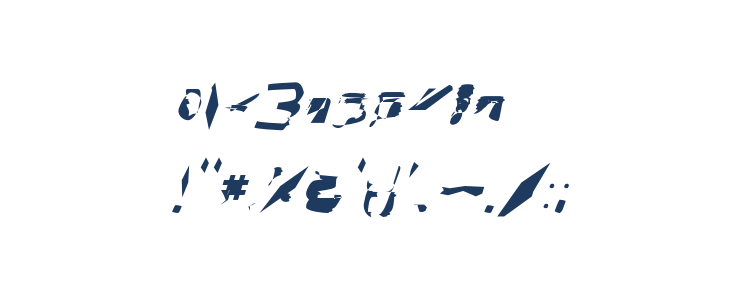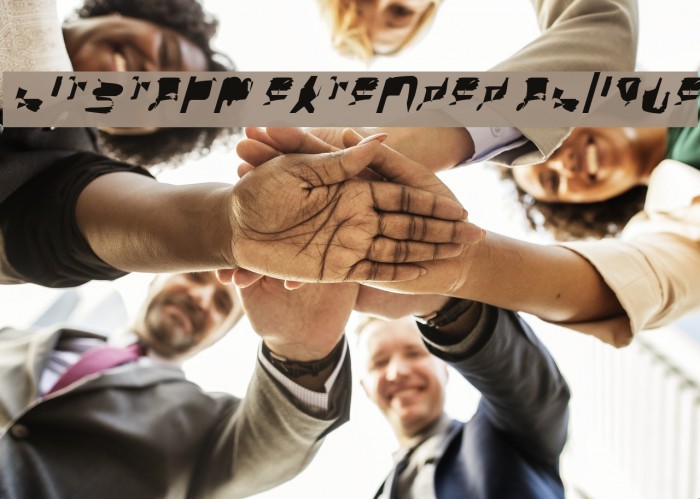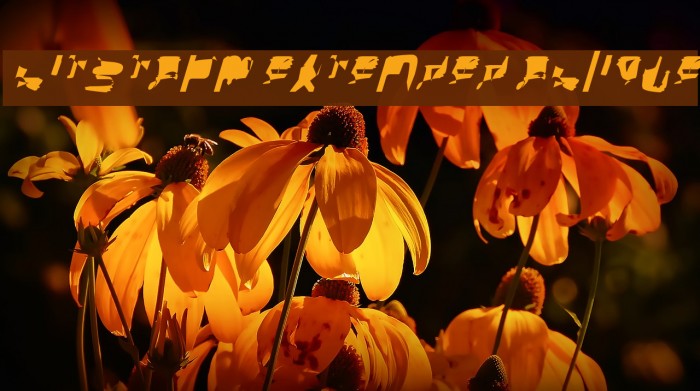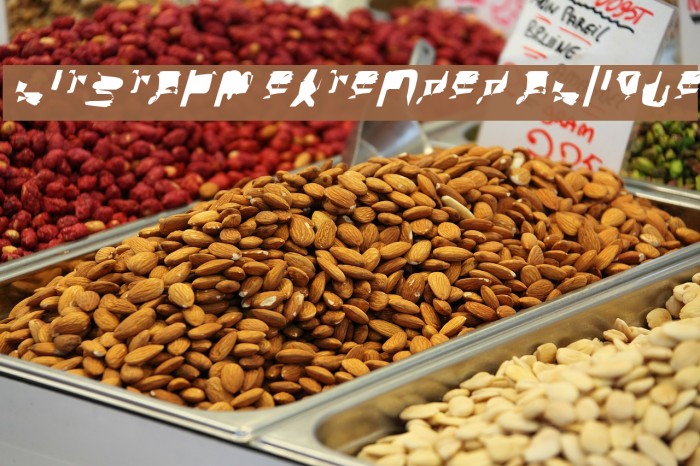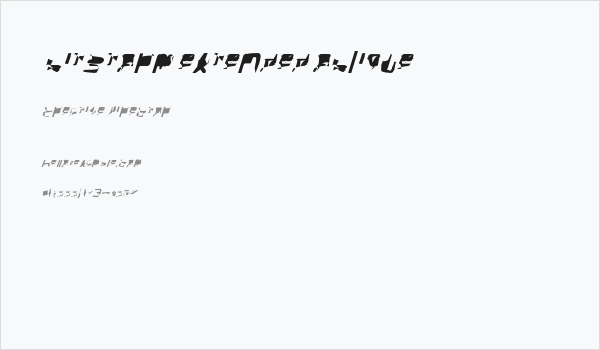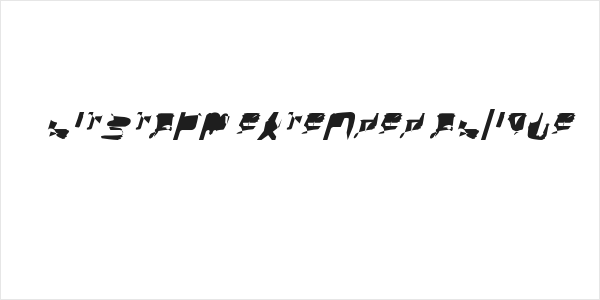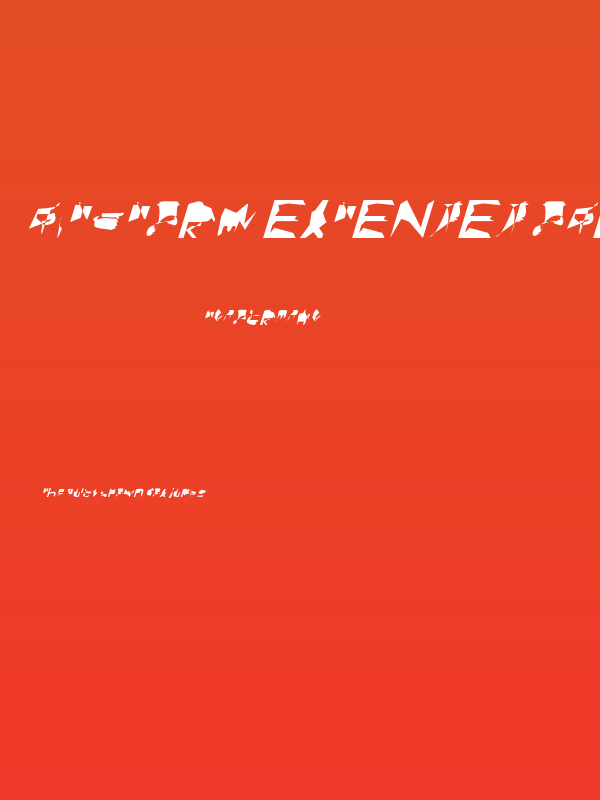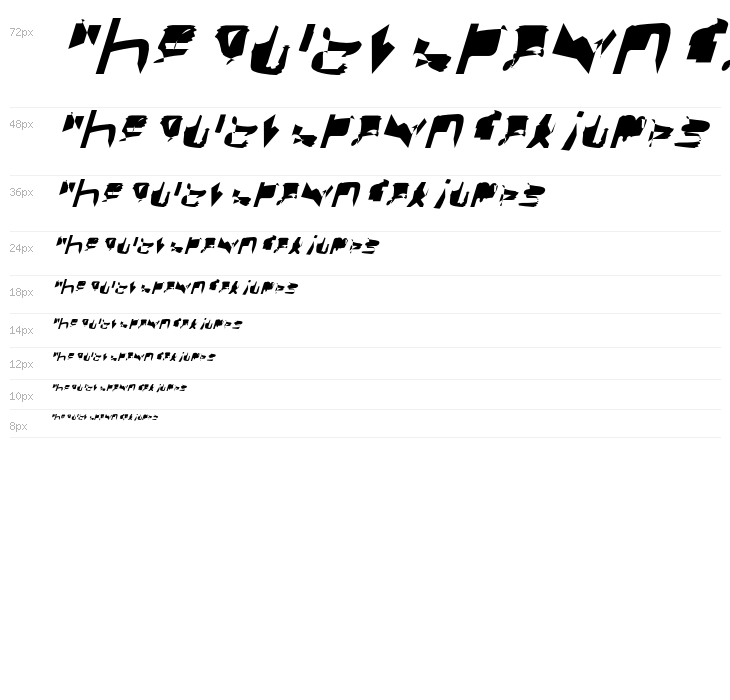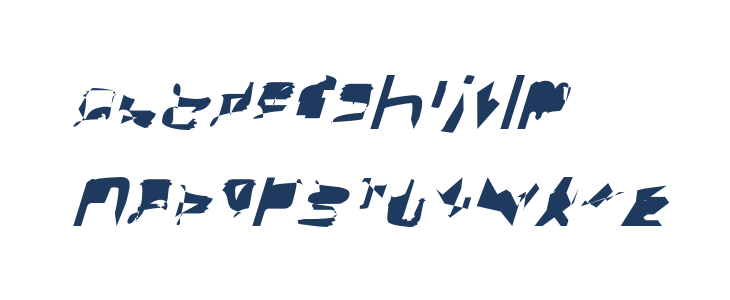
bitstorm extended oblique Font
bitstorm extended oblique Description
This font features a highly stylized and fragmented design, characterized by its sharp, angular strokes and dynamic, oblique orientation. The characters appear as if they are in motion, with a sense of energy and aggression. The fragmented nature of the letters gives it a chaotic and edgy appearance, making it stand out as a bold statement piece. The uppercase and lowercase letters maintain a consistent style, with exaggerated angles and broken lines that suggest a sense of urgency and modernity. The numerals and special characters follow the same design principles, ensuring a cohesive look across all elements.
Overall StyleModern, Edgy
Proposed ProjectsIdeal for projects that require a bold and unconventional look, such as music album covers, posters for action or thriller movies, and edgy branding materials.